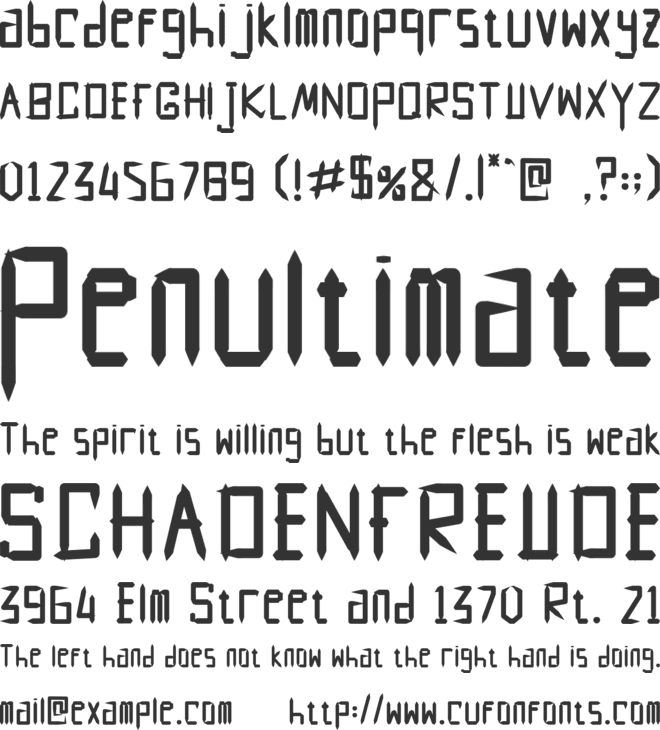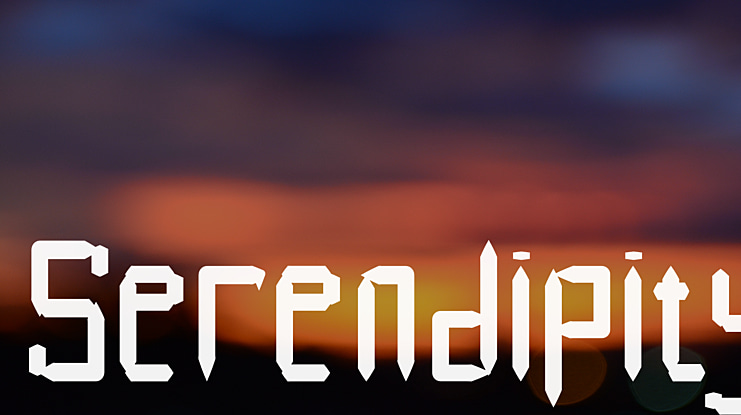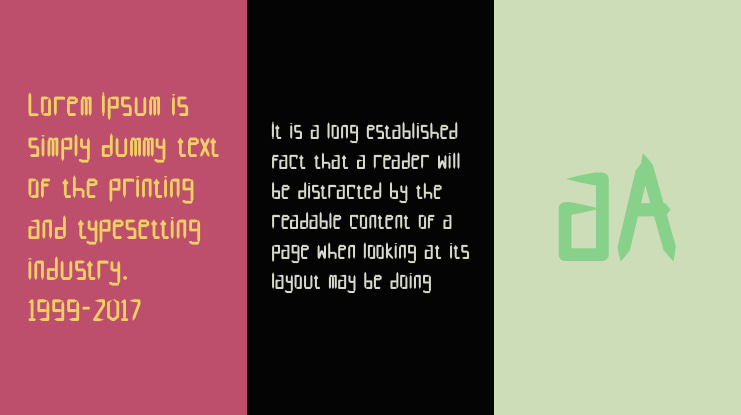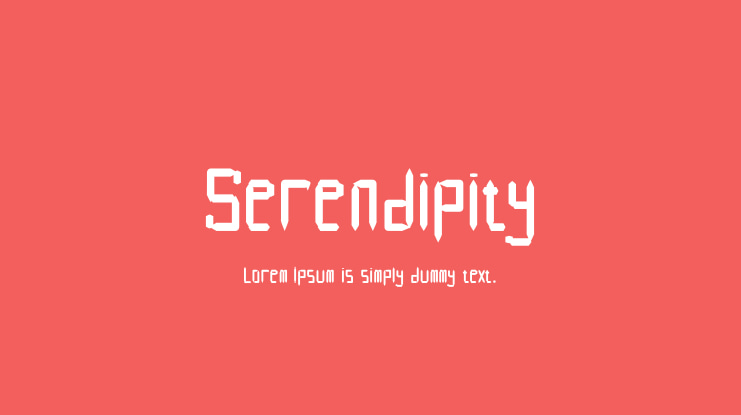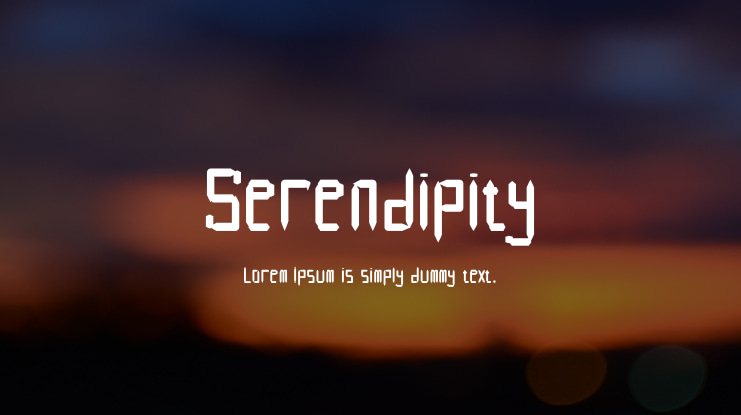
Serendipity Font
Muhammad Nashrul Aziz
Serendipity is a cool looking, robotic display font. This font is ideal for writing web designs, business cards, or pretty much anything else that requires a unique touch.